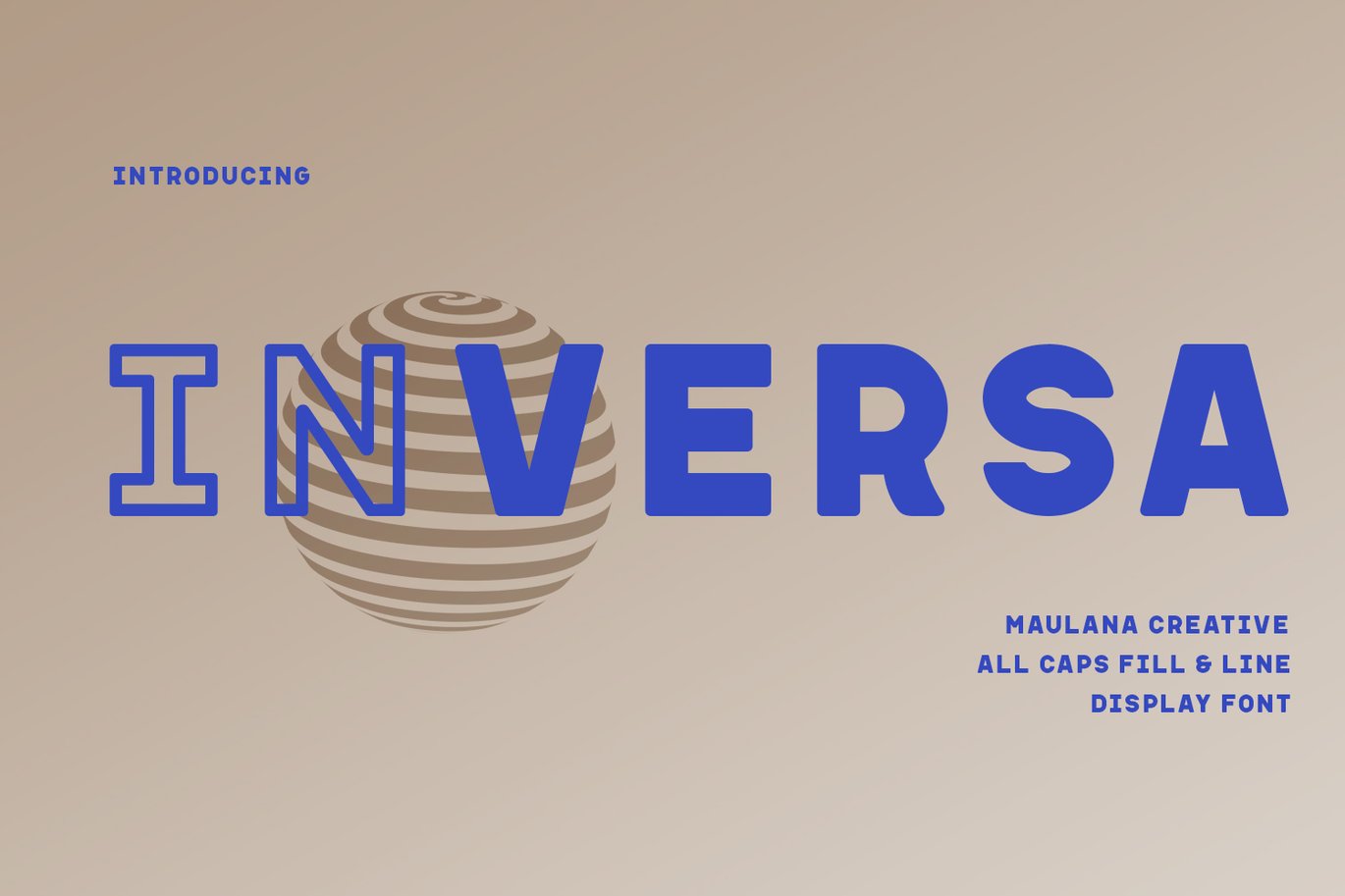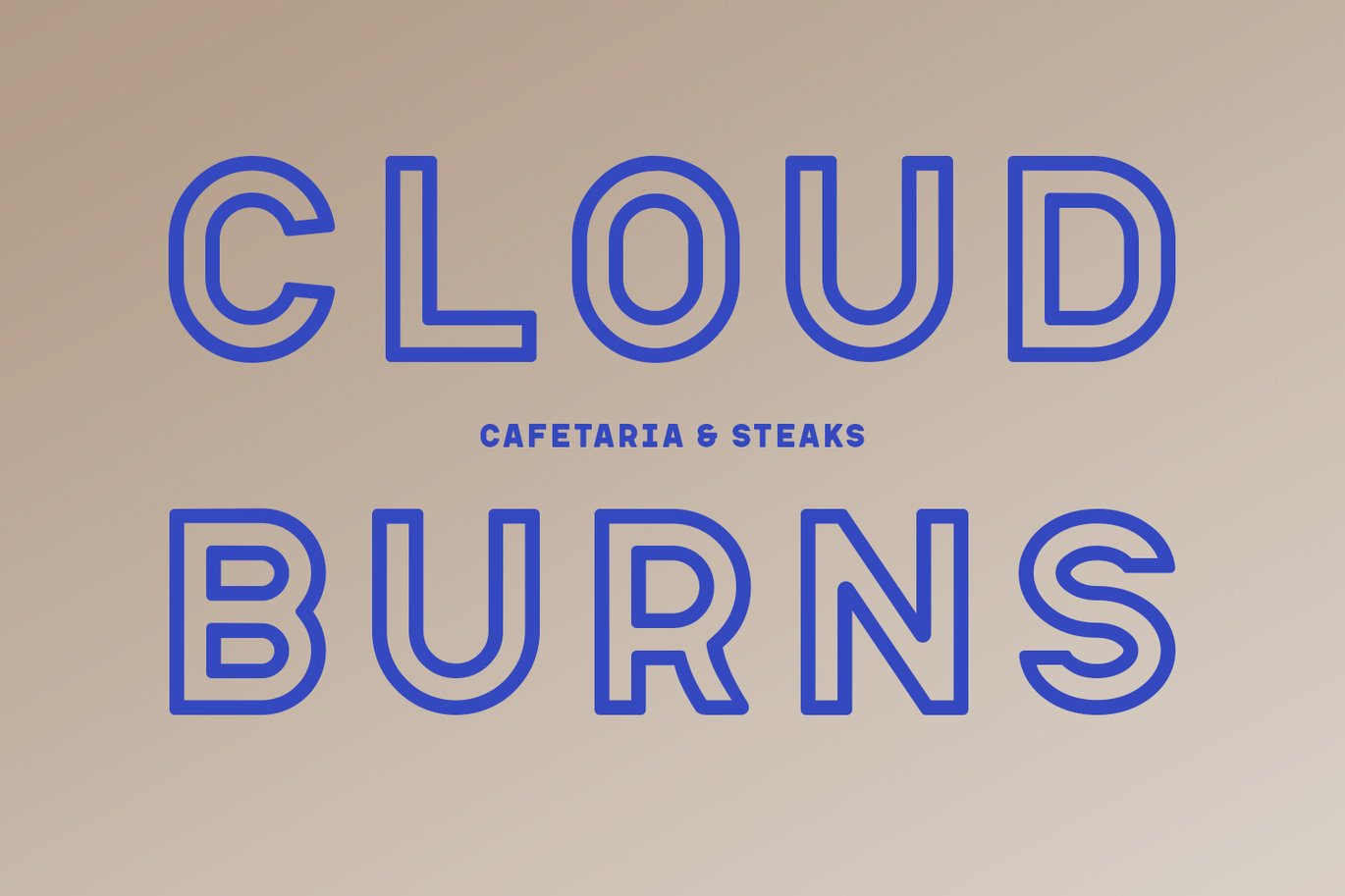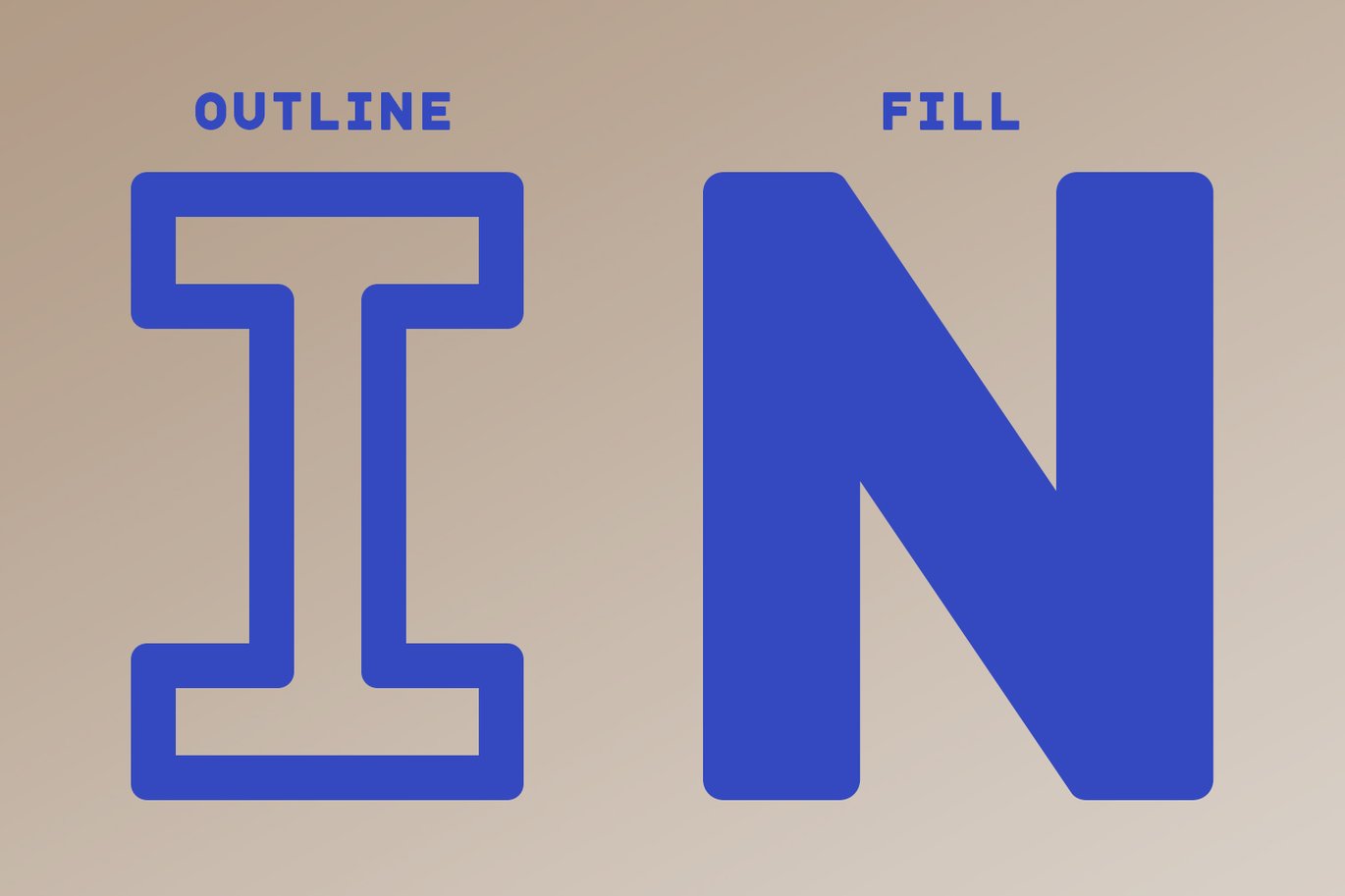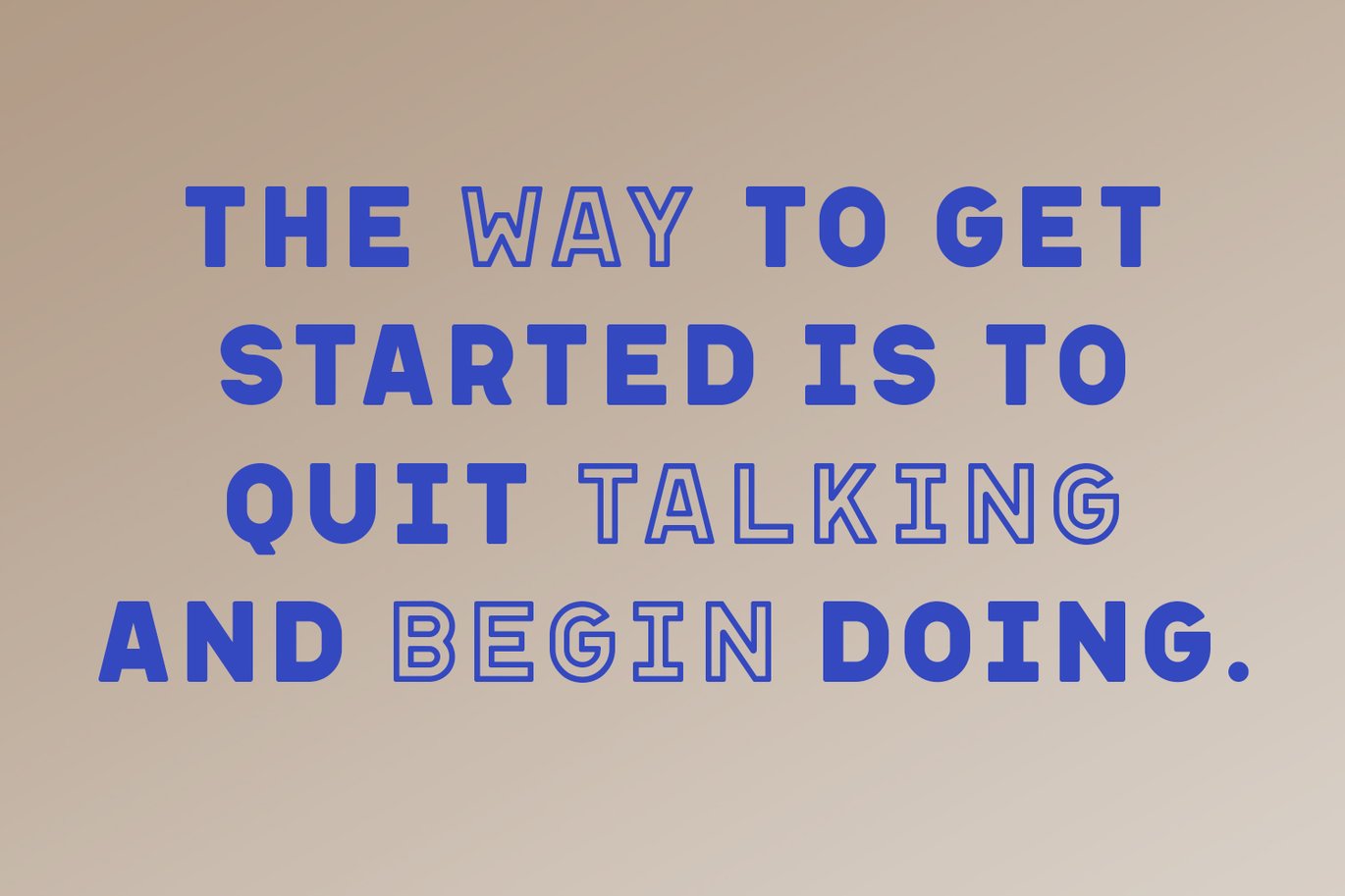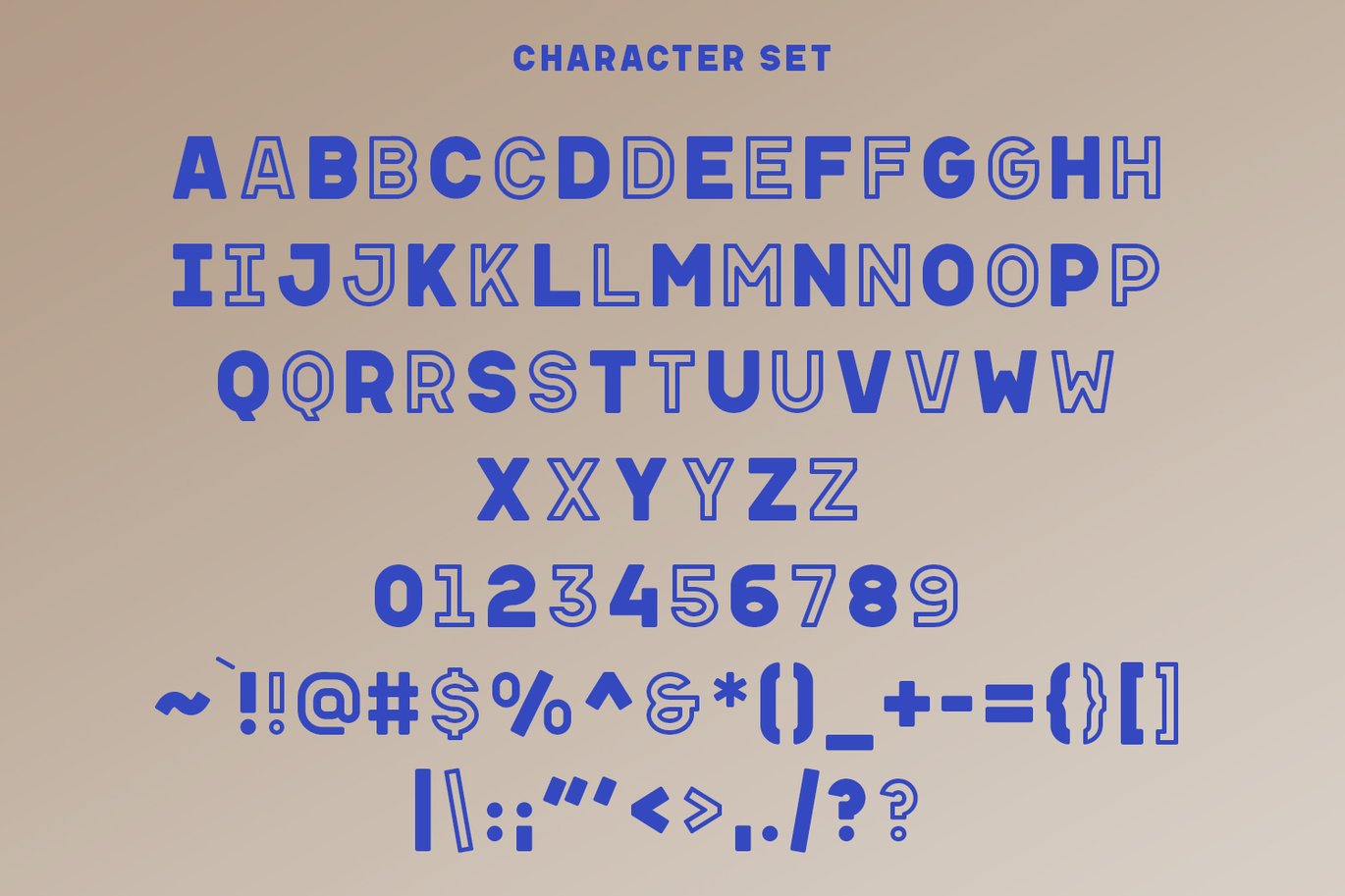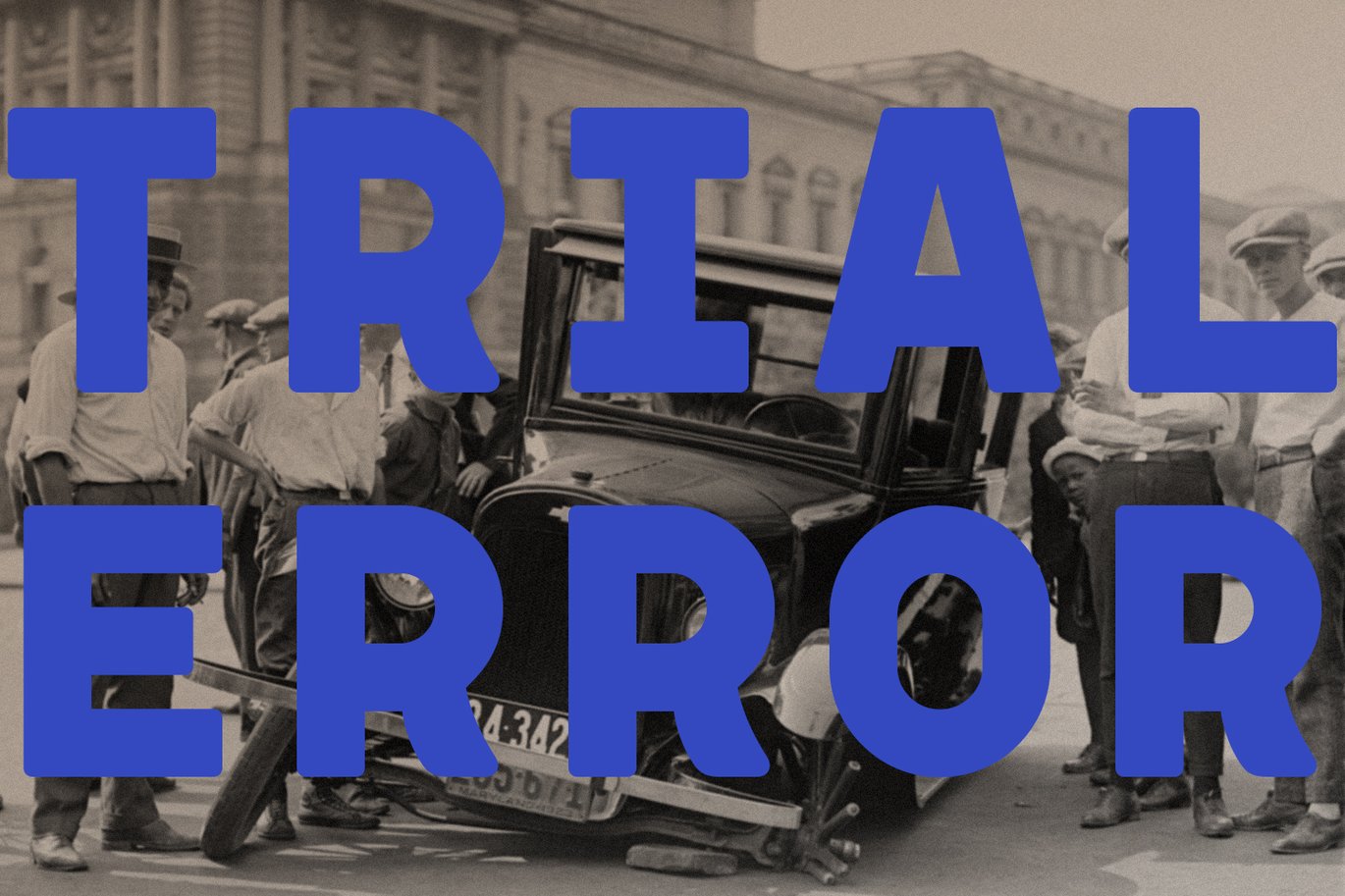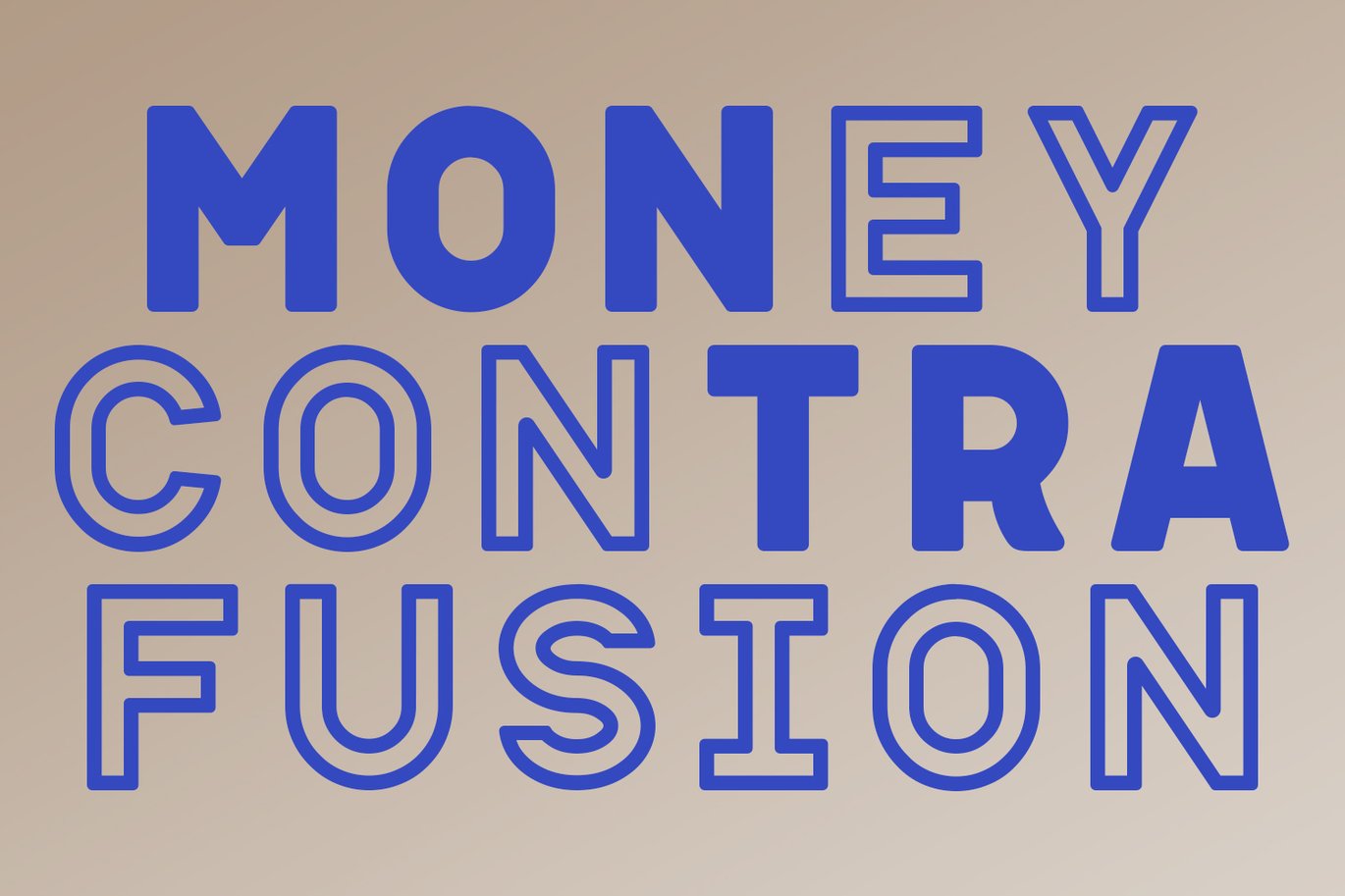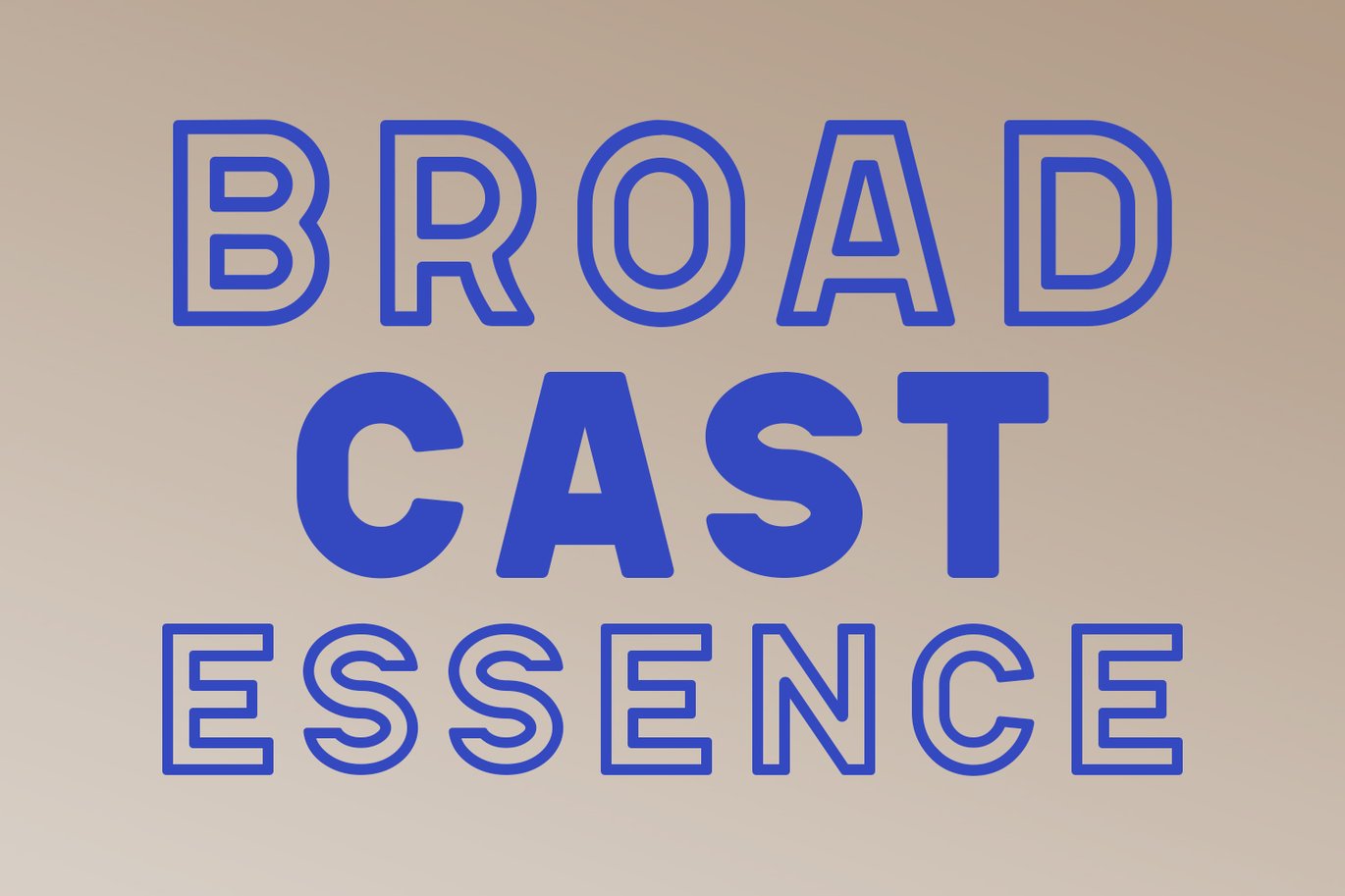
Inversa Display Sans Font
Inversa is a Display sans font with two style. Regular Fill and Outline stroke, fun character with a bit of ligatures and alternates. To give you an extra creative work. Inversa font support multilingual more than 100+ language. This font is good for logo design, Social media, Movie Titles, Books Titles, a short text even a long text letter and good for your secondary text font with script or serif. Make a stunning work with Inversa font.